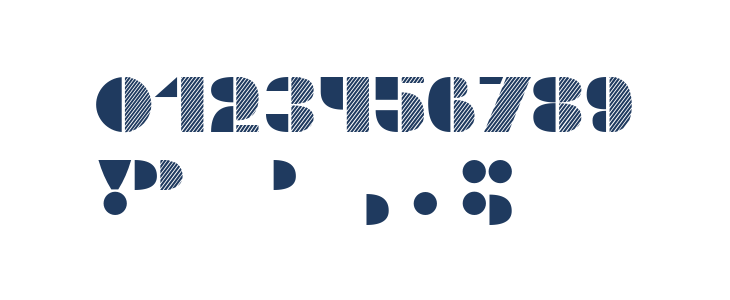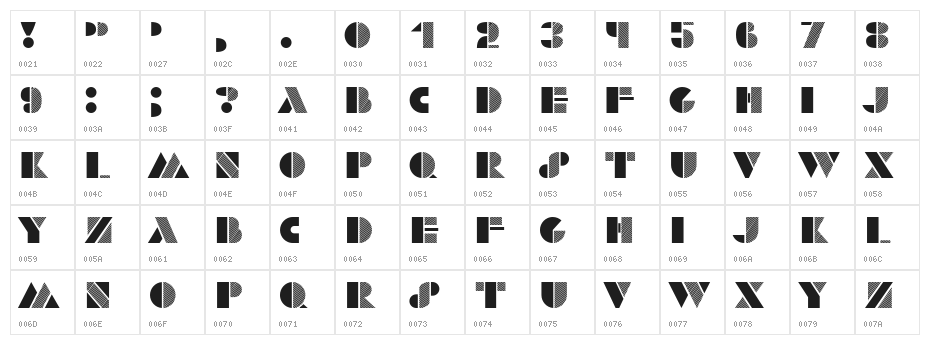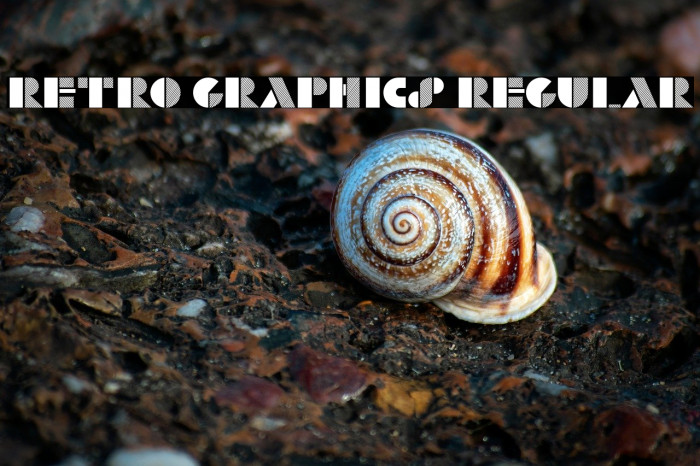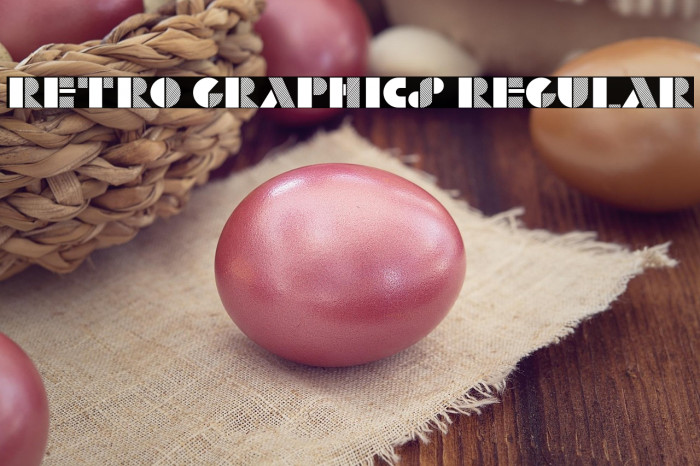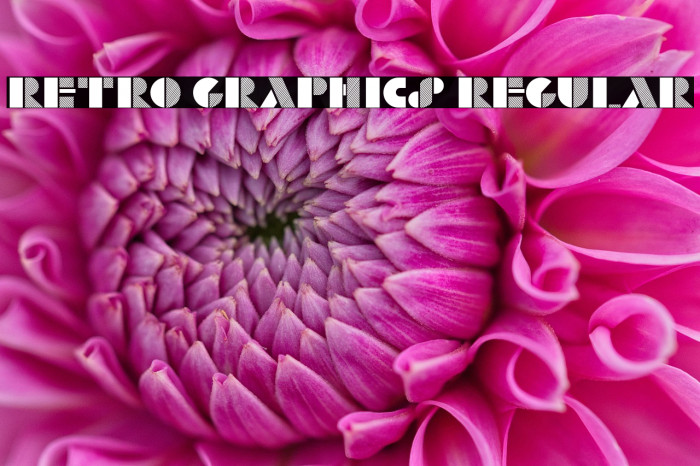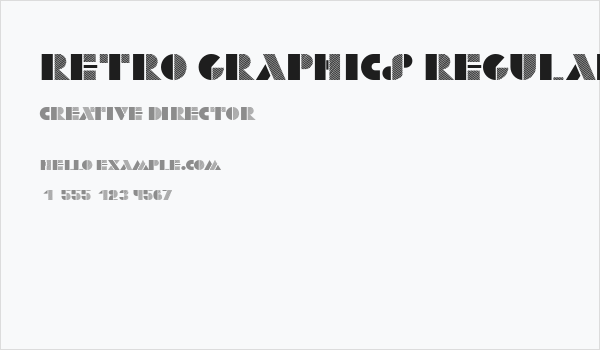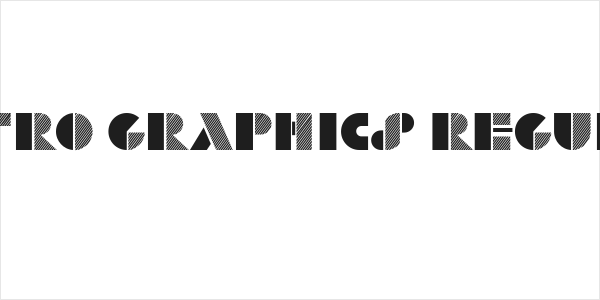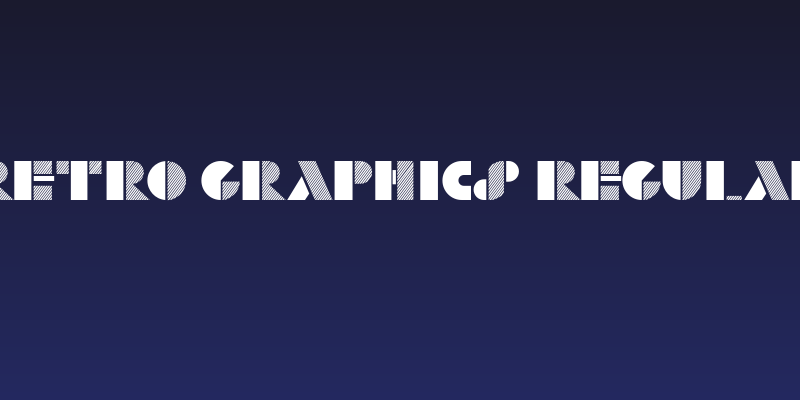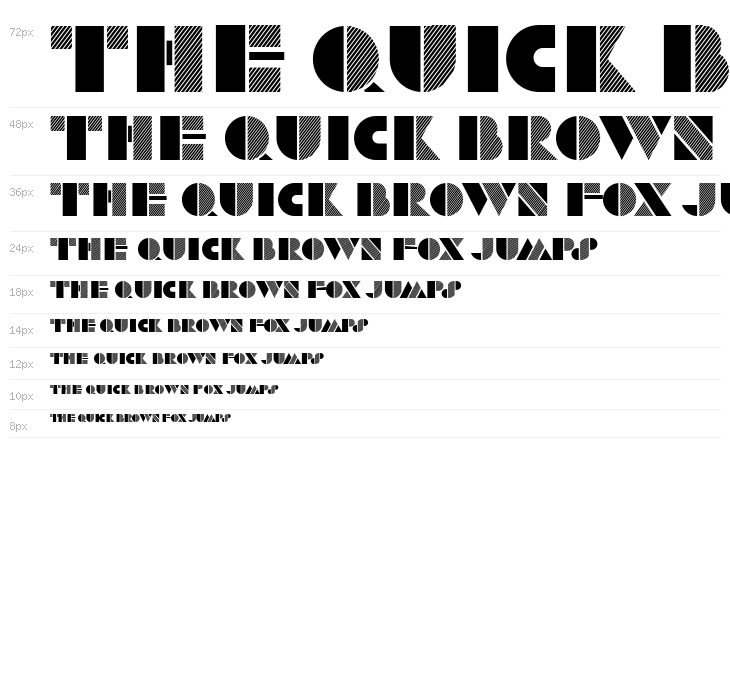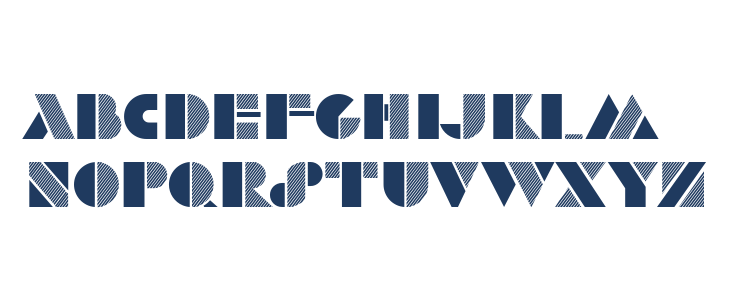
Retro Graphics Regular Font
Retro Graphics Regular Description
This font features a bold and geometric design with a distinct retro flair. Each character is constructed using solid shapes and diagonal lines, creating a unique visual texture. The uppercase and lowercase letters maintain a consistent style, with a strong emphasis on angular forms and a playful use of negative space. The numbers and special characters follow the same aesthetic, ensuring a cohesive look across all glyphs. This font's striking appearance makes it ideal for projects that require a vintage or nostalgic touch, while its boldness ensures readability and impact.
| Overall Style | Retro |
| Proposed Projects | Ideal for vintage-themed posters, retro branding, album covers, and creative advertising. |